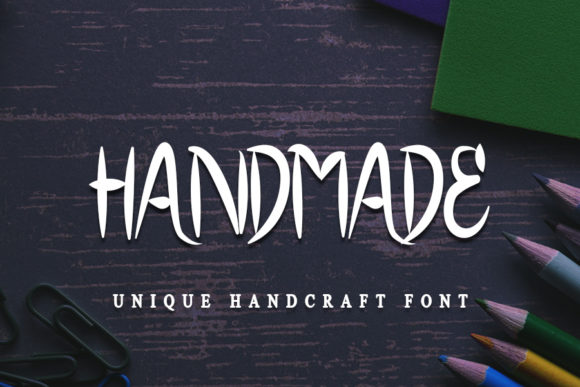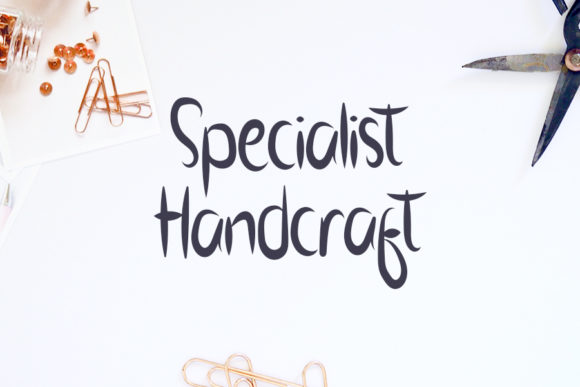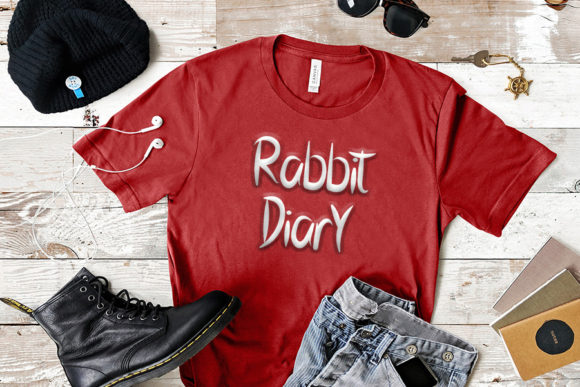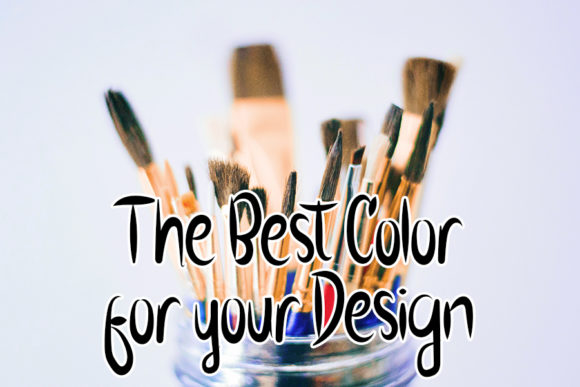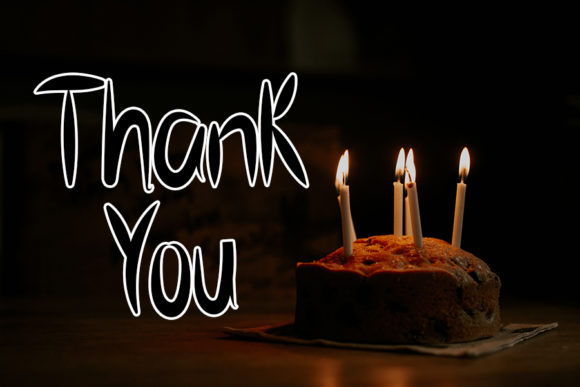
Handmade is a simple and a bit spooky handwritten font. Incredibly fitting for your party designs, this font will elevate each and everyone of your creations.